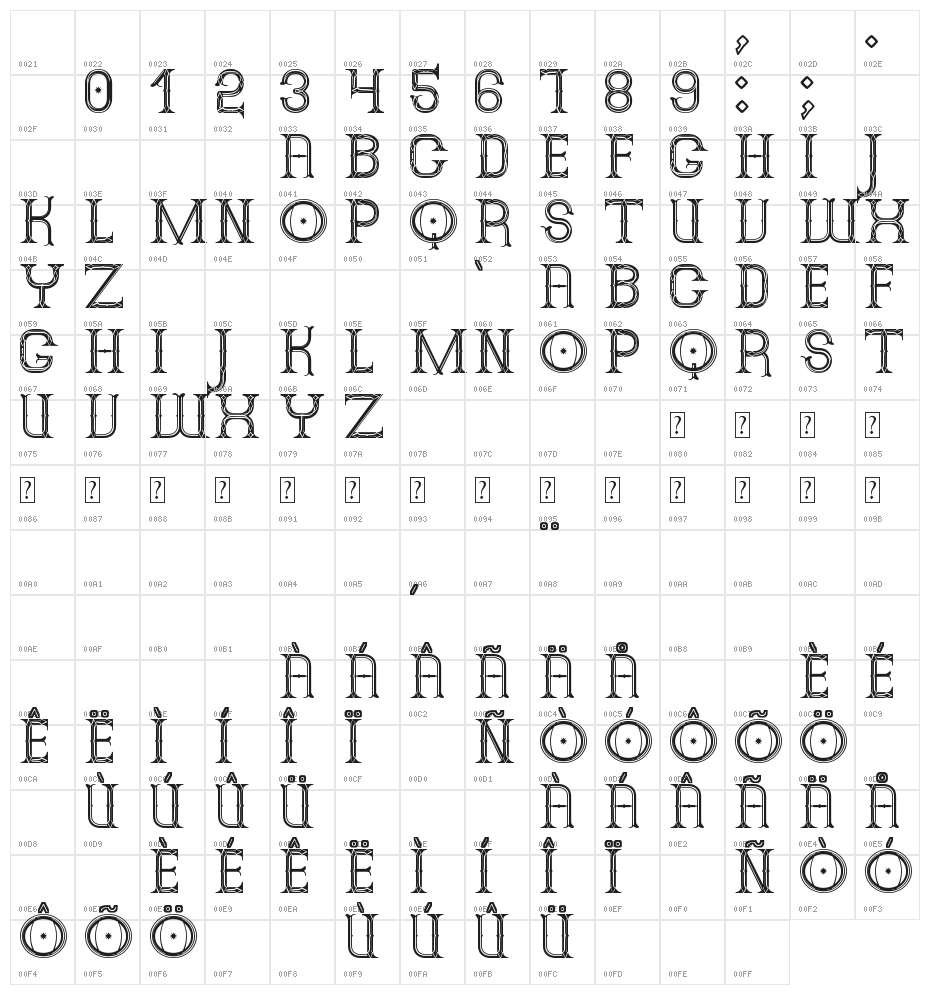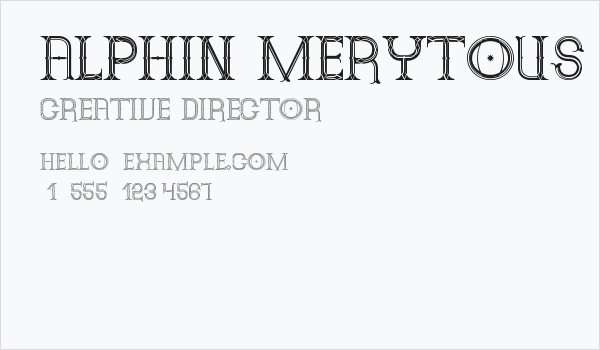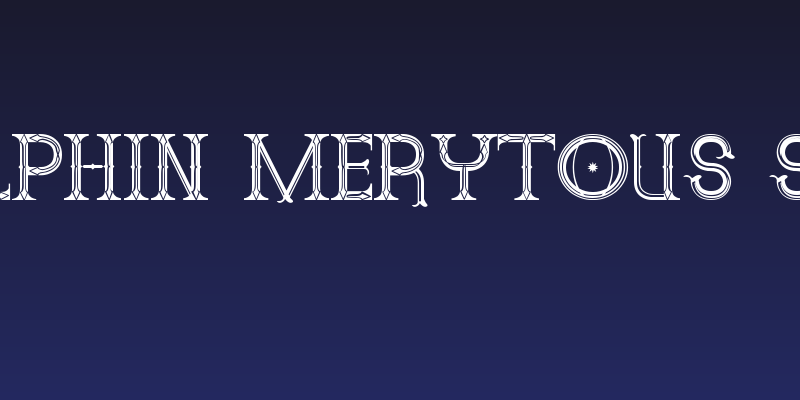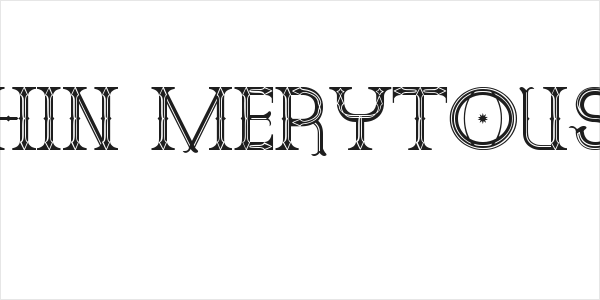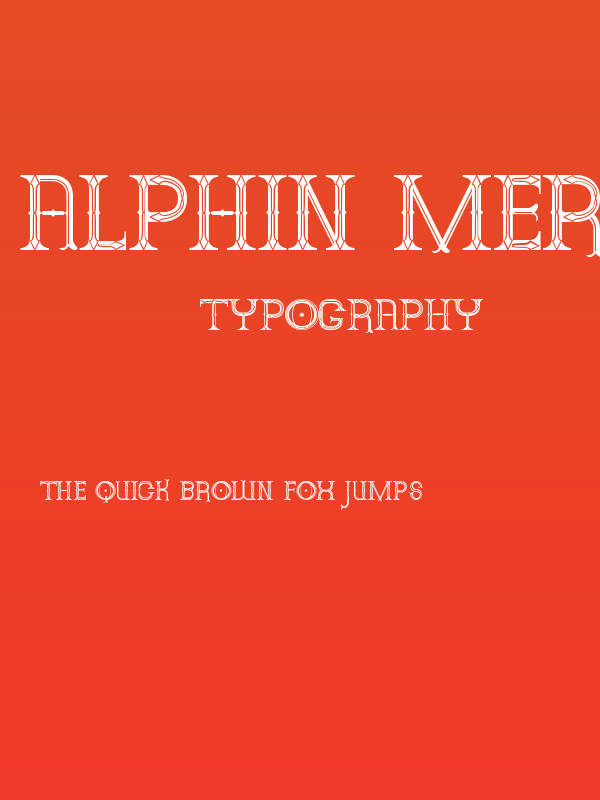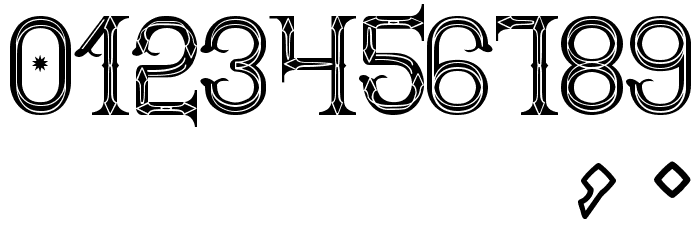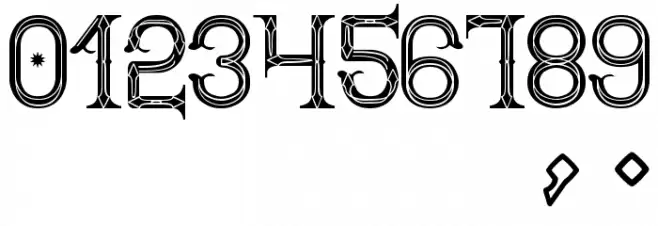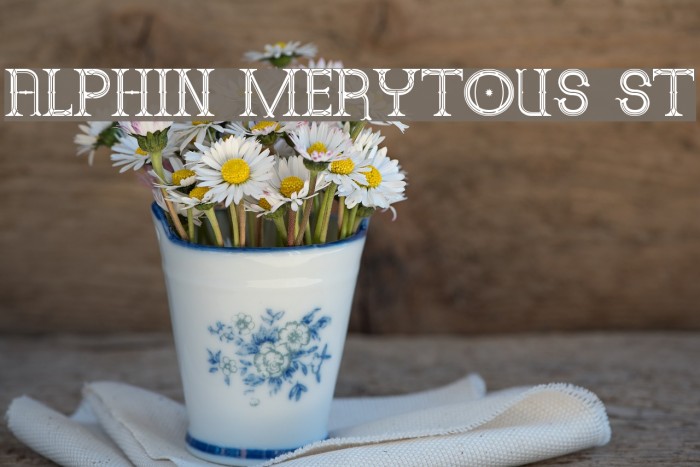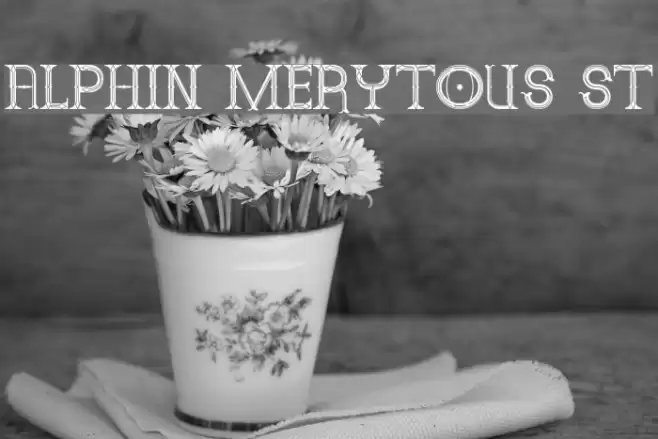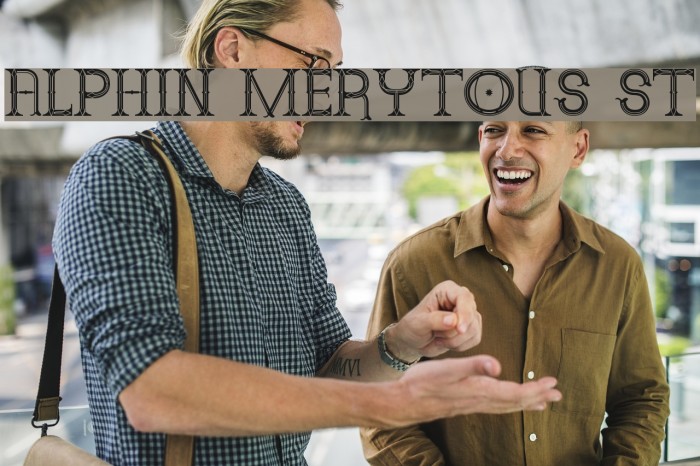
Alphin Merytous St Font
Alphin Merytous St Description
This font features a highly decorative and intricate design, characterized by its ornate and elaborate detailing. Each character is adorned with unique embellishments, including star-like motifs and geometric patterns, creating a sense of elegance and sophistication. The uppercase letters are bold and commanding, while the lowercase letters maintain a consistent style, ensuring readability despite the complex design. The numbers follow the same ornate theme, making them visually cohesive with the alphabet. The special characters are equally detailed, adding to the overall aesthetic appeal. This font is ideal for projects that require a touch of luxury and grandeur.
| Proposed Projects | Ideal for luxury branding, wedding invitations, high-end product packaging, and decorative headlines. |